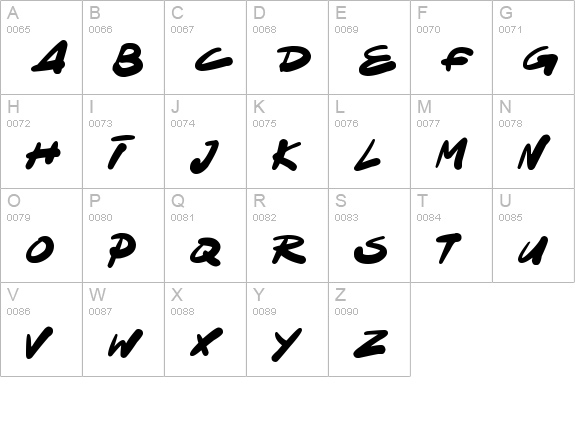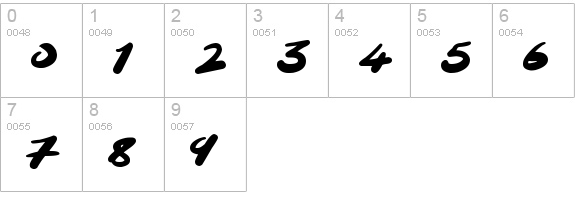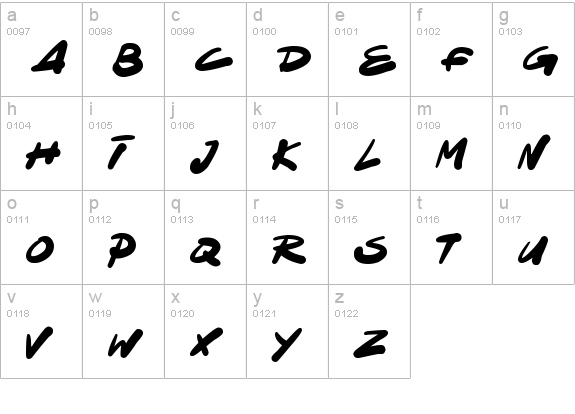
Ninja Note Font Details
Ninja Note is a free for personal use font in the Script > Brush category, designed by Darrell Flood. It has been downloaded 123 times and is available for Windows, Mac and Linux.
Introducing Ninja Note font, a sleek and stylish typeface perfect for adding a touch of mystery and intrigue to your designs. This unique font combines sharp edges with smooth curves to create a modern and edgy look. Whether you're working on a poster, logo, or website, Ninja Note font is sure to make a bold statement.